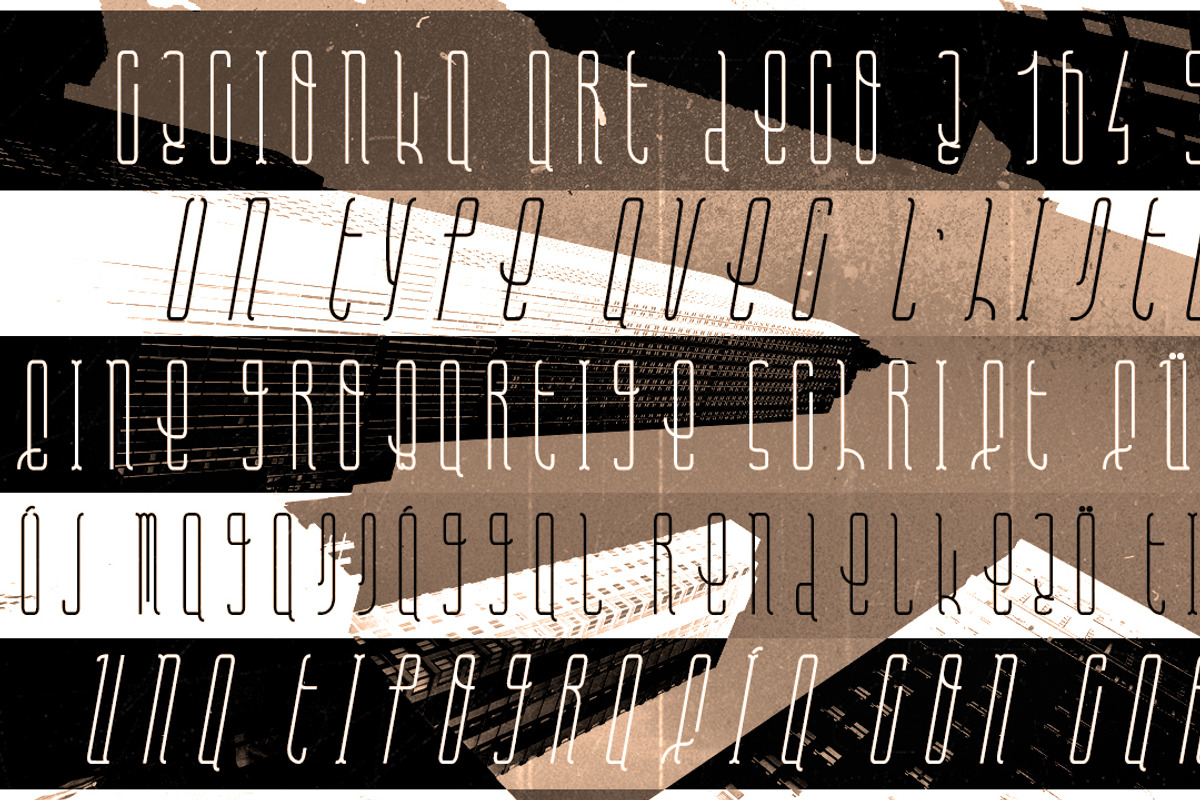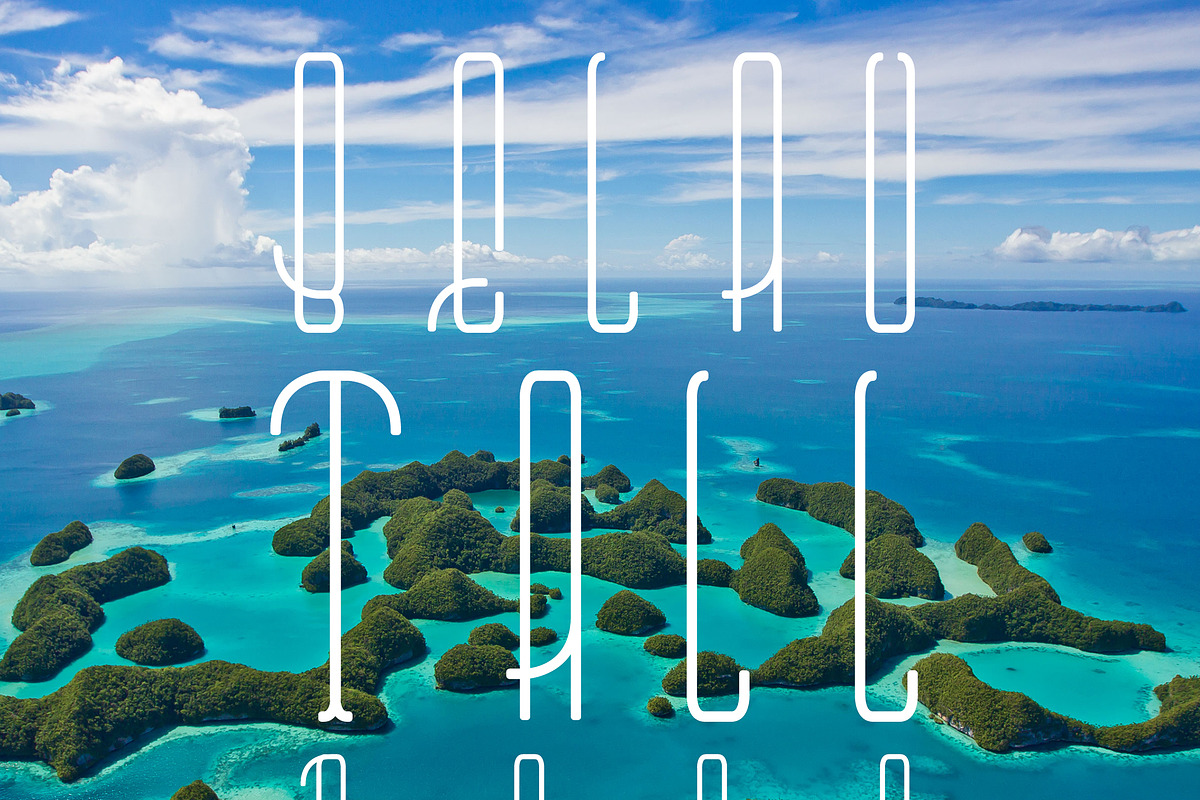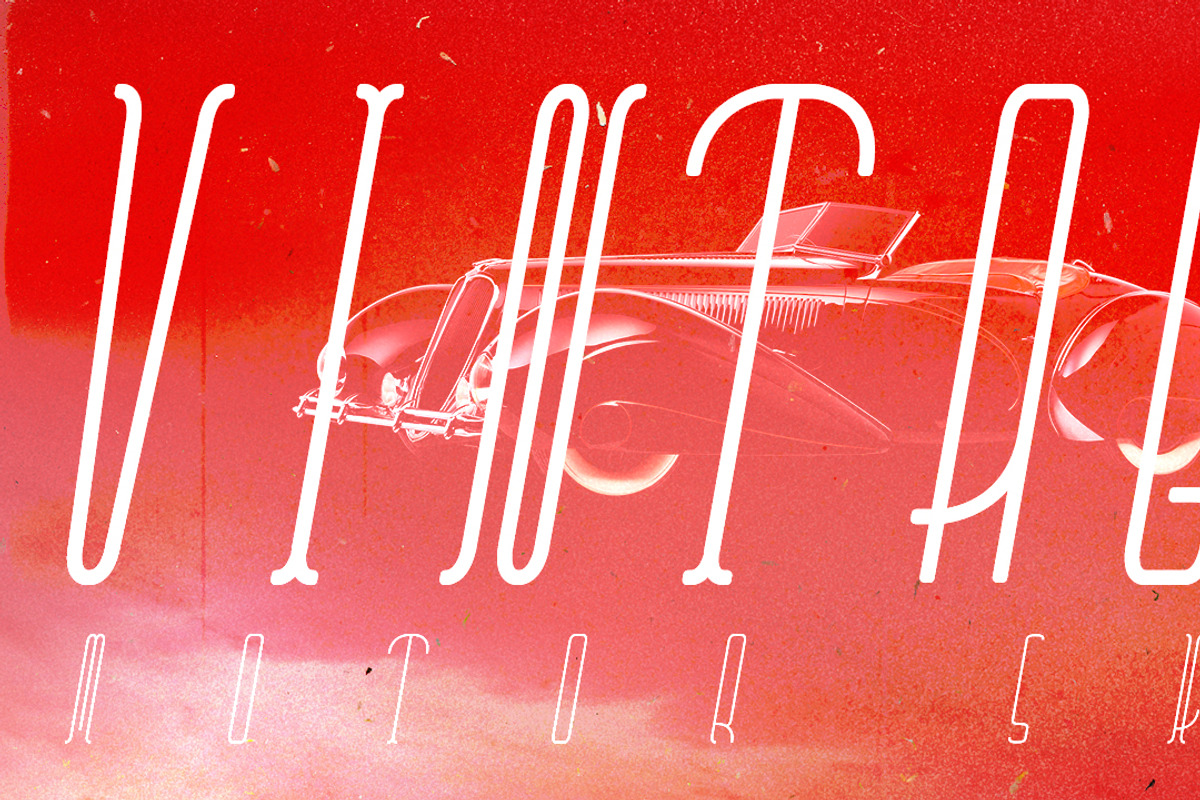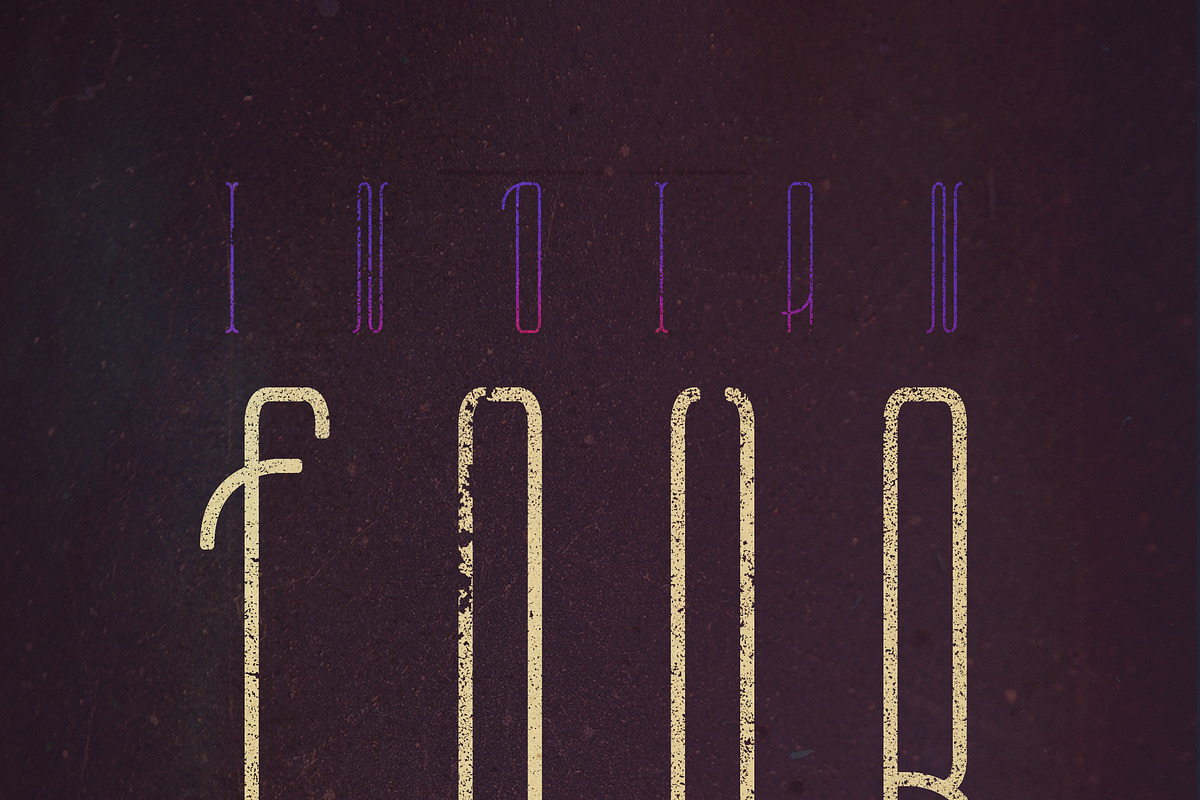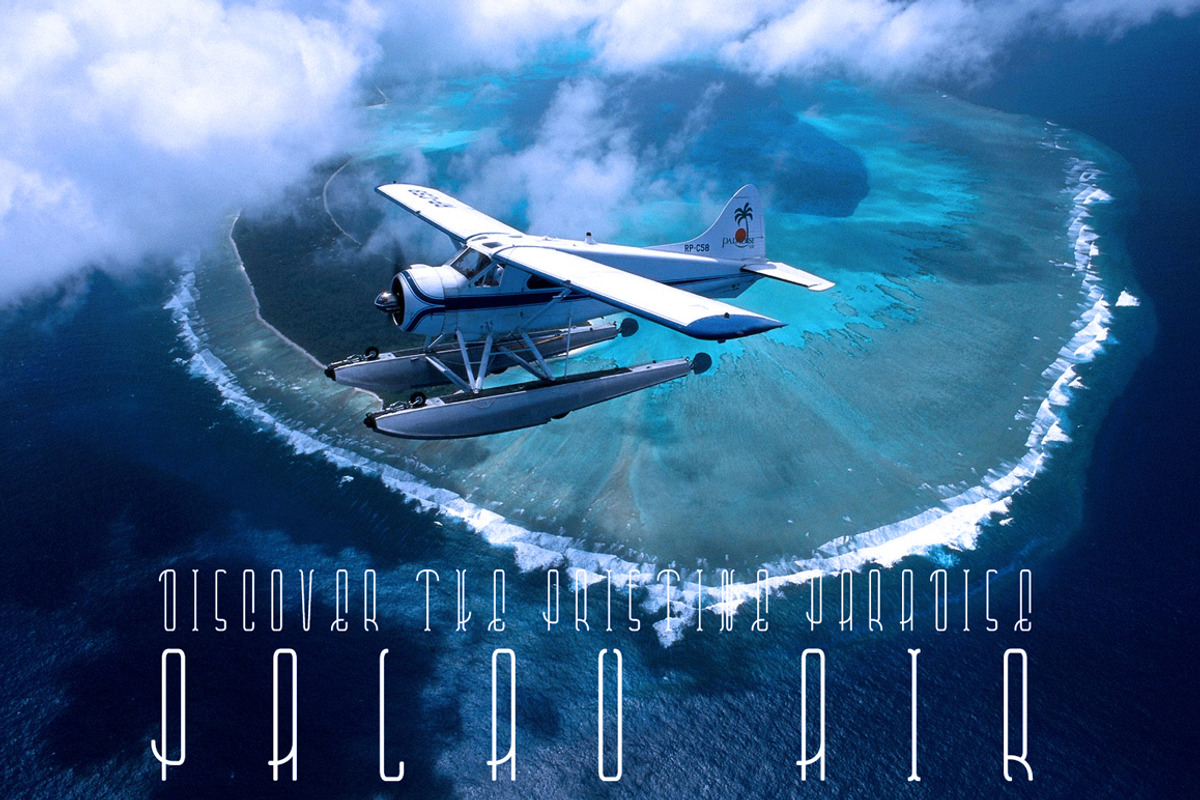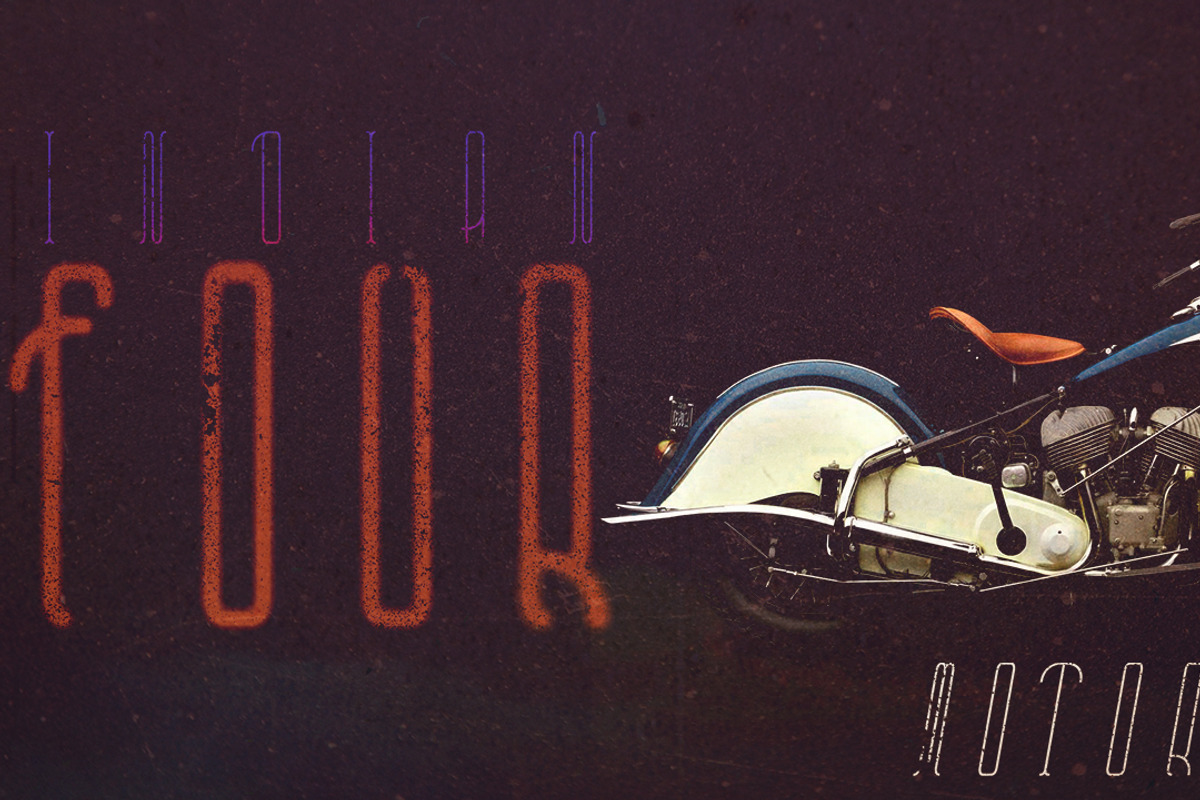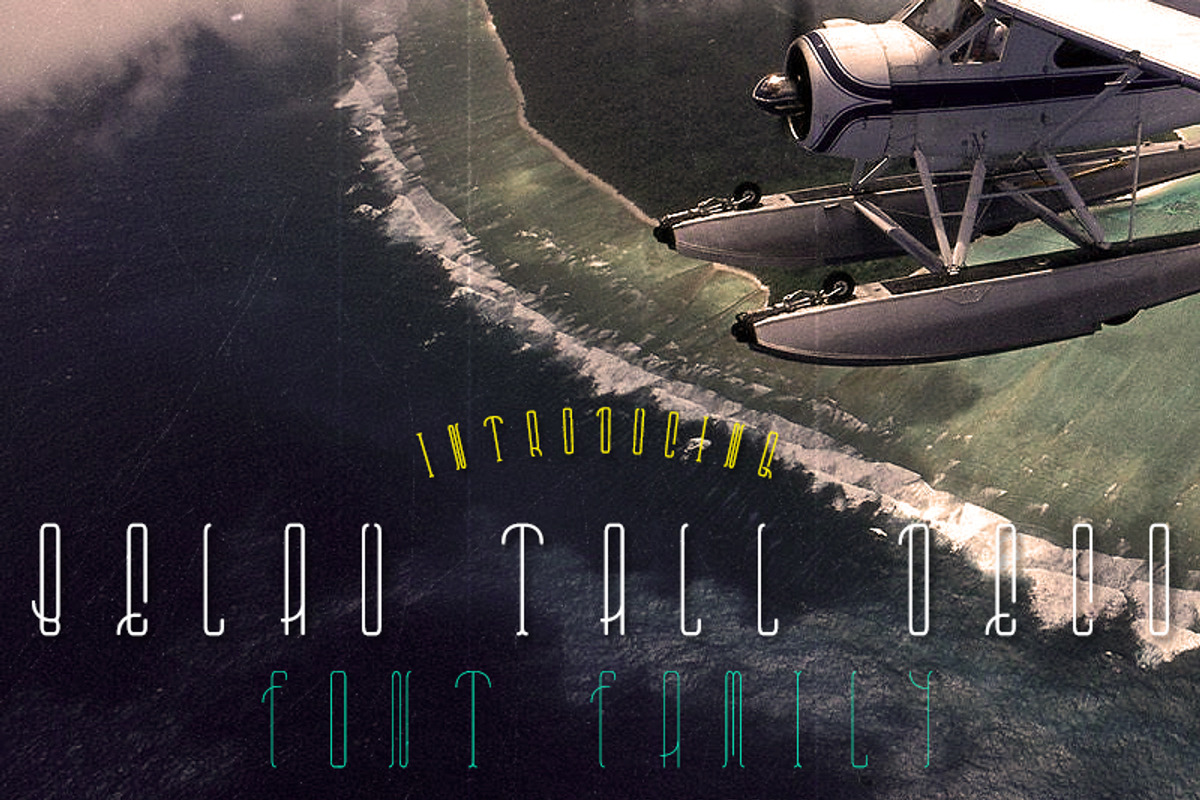
Belau Tall Deco Font Family
Belau Tall Deco is dedicated to my father and his family history. One of my ancestors, Spanish but with Germanic origins, circa 1800's, was sent by Pope Leo XIII to Palau when he asserted Spain's rights over the Caroline Islands in 1885.
Belau Tall Deco, I designed it to have an Art Deco similarity; to be more trendy and with both a happy and tropical feel to it, while at the same time being eligible and easy to read.
Belau Tall Deco is a fantastic large set and very tall art deco font of upper and lower case signs; ligatures for specialized applications, and includes an additional set of numbers, accented glyphs, and additional mathematical and monetary symbols.
Belau Tall Deco is great for headlines, titles, posters, logos, presentations etc.
It comes in 6 variations:
Bold Rounded Cursive.
Each variation contains 164 glyphs